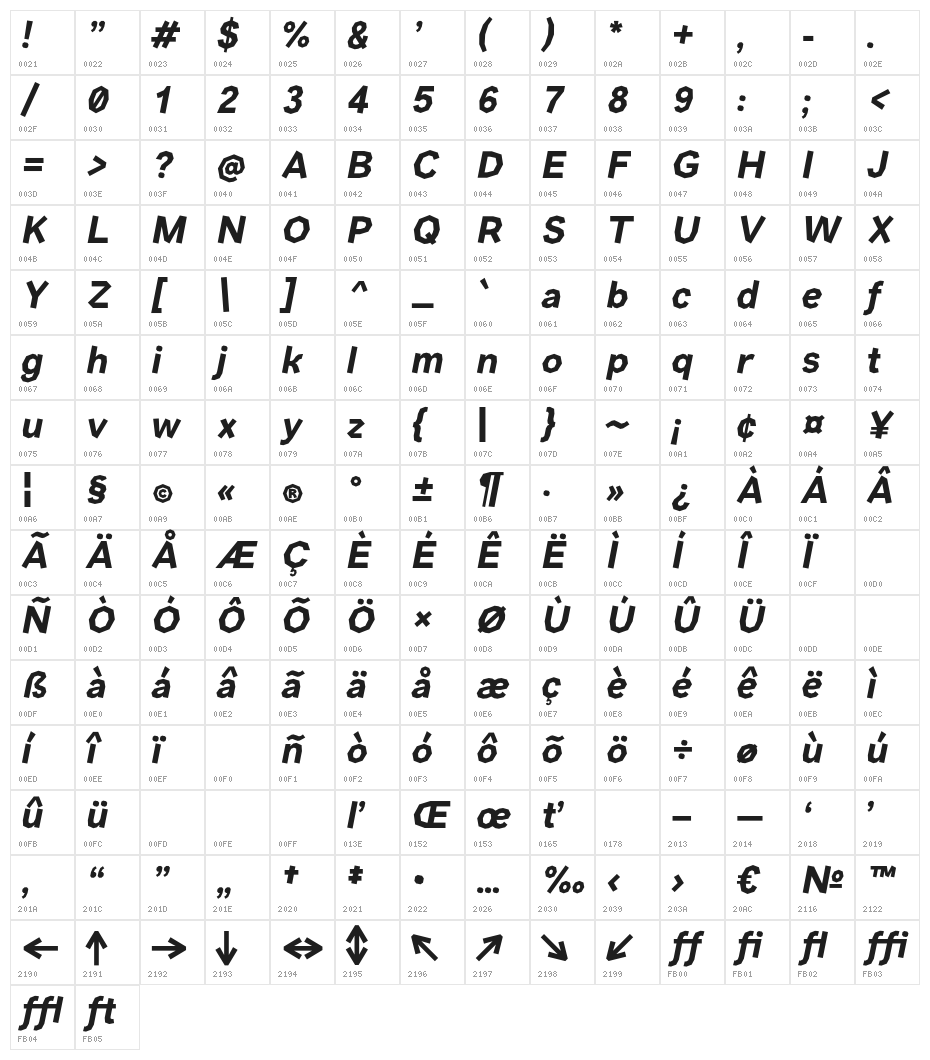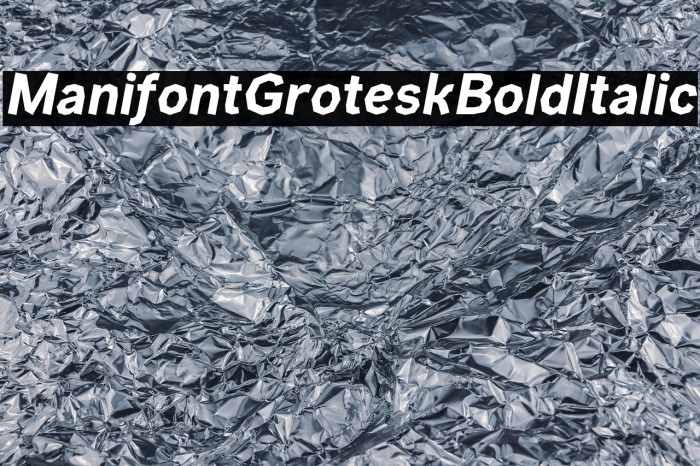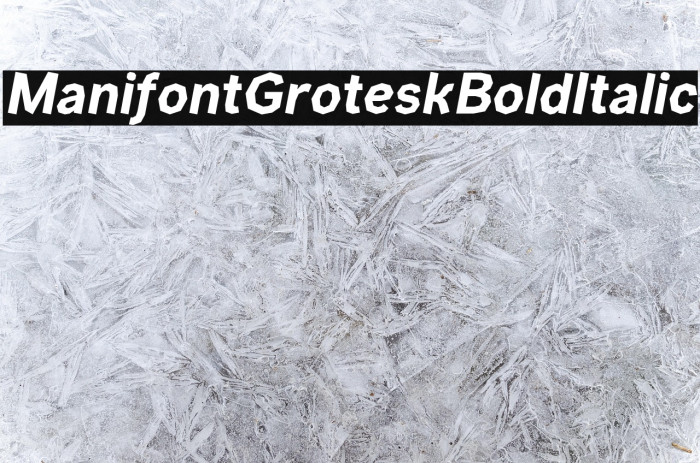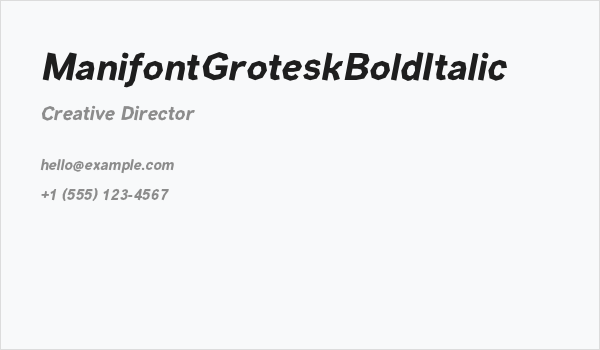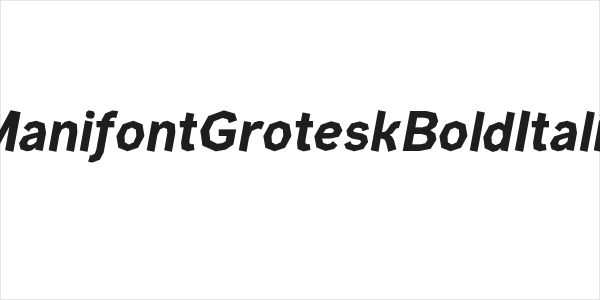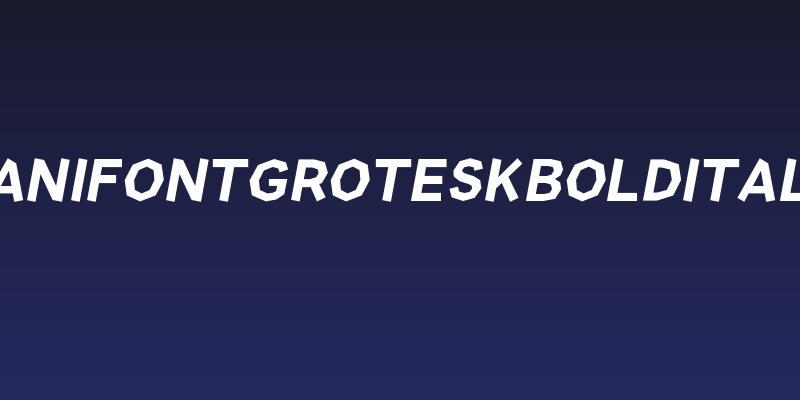
ManifontGroteskBoldItalic Font
ManifontGroteskBoldItalic Description
This font features a bold and italicized style with a distinct geometric and angular design. The characters are slightly slanted, giving a dynamic and energetic appearance. The uppercase and lowercase letters maintain a consistent weight, contributing to a uniform look. The numbers and special characters are crafted with the same boldness, ensuring readability and impact. The font's strong presence makes it suitable for attention-grabbing applications.
| Proposed Projects | Ideal for branding, posters, headlines, and any project requiring a bold and dynamic typeface. |